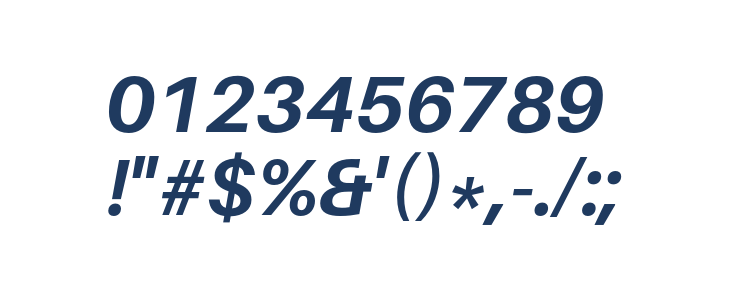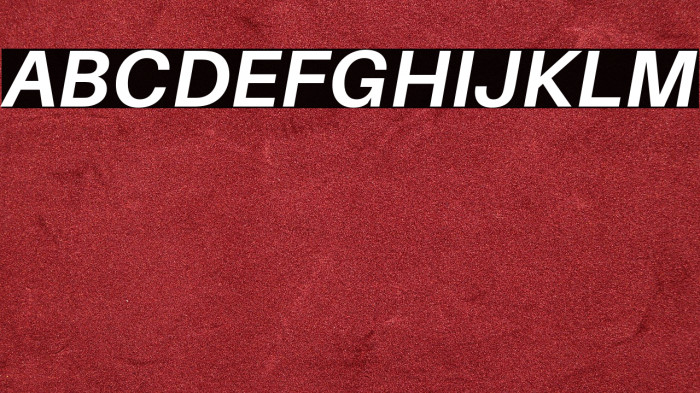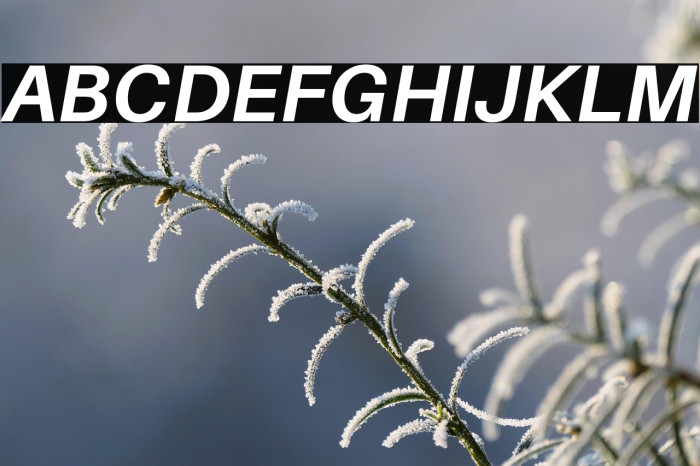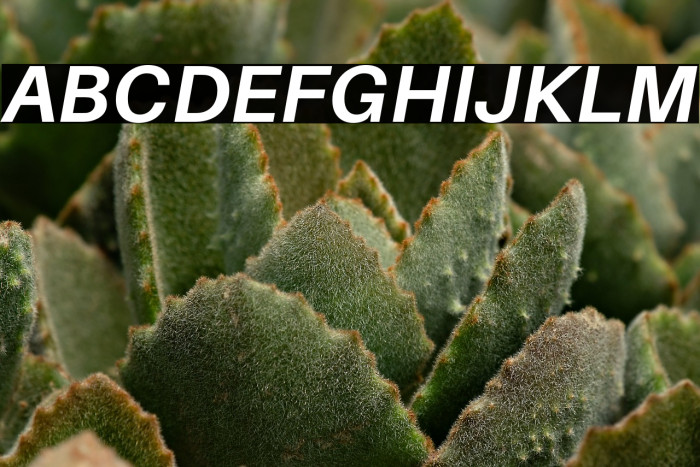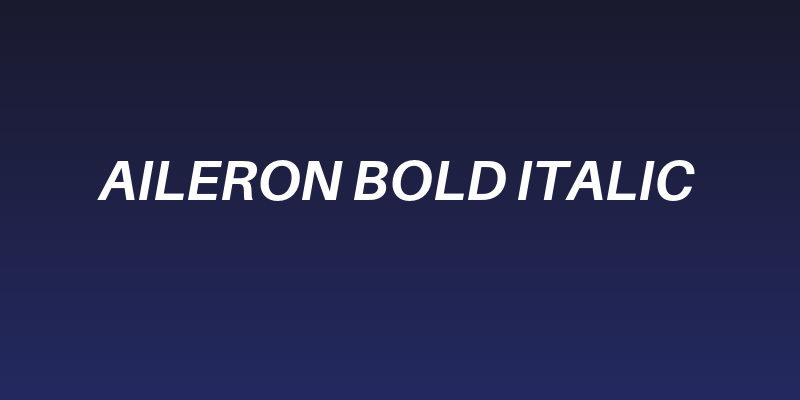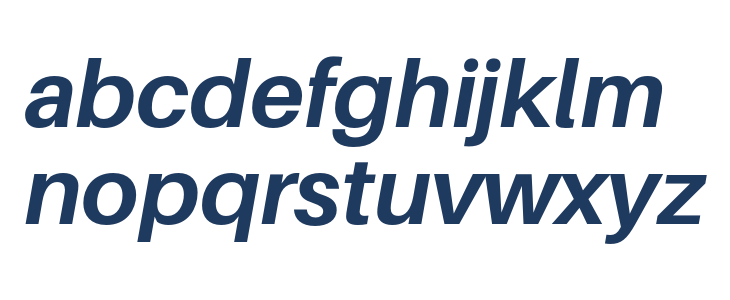
Aileron Bold Italic Font
Aileron Bold Italic Description
This font features a bold and italic style, offering a dynamic and modern appearance. The characters are well-defined with a slight slant, adding a sense of motion and elegance. The uppercase and lowercase letters are consistent in style, providing a cohesive look. Numbers and special characters are clear and legible, maintaining the font's overall boldness. The design is clean and versatile, suitable for various applications.
| Use Case | Headlines, Logos, Advertising |
| Proposed Projects | Ideal for branding, advertising, and headlines where a strong and modern impression is needed. |